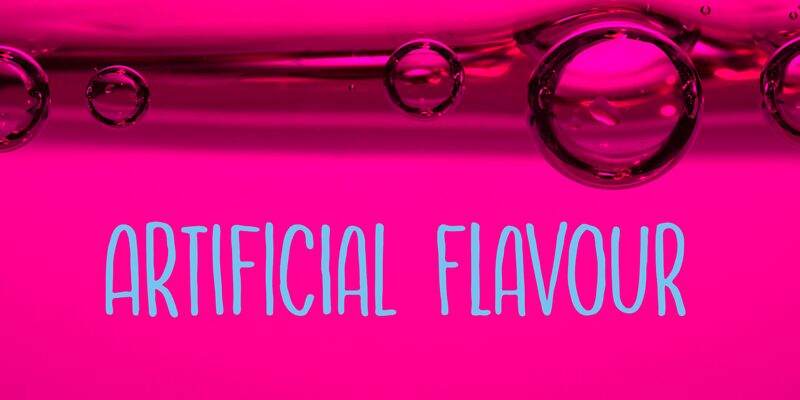
Artificial Flavour DEMO Regular
Artificial Flavour is a semi-light, extra-condensed handwritten font designed by D K. The unique style of this font is perfect for projects that require a personal touch, such as wedding invitations or greeting cards. Its condensed width makes it ideal for use in headlines and titles where space is limited. With only capital letters available, Artificial Flavour commands attention and adds a playful flair to any design. Whether used in branding or social media graphics, this font will give your project a distinct personality that sets it apart from the rest.